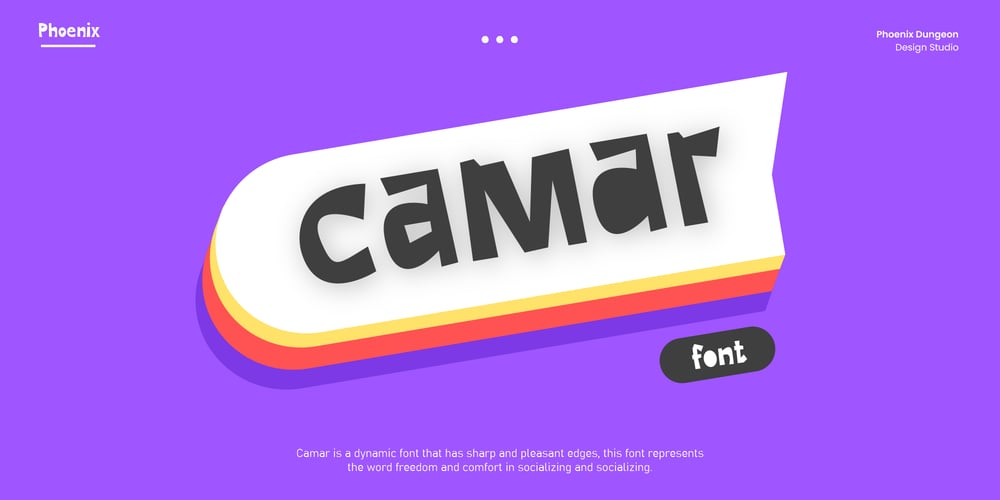
Camar Font Family was designed by Alif Naufal Muzakki and published by Phoenix Group. Camar contains 1 styles and family package options. Camar is a dynamic font that has sharp and pleasant edges, this font represents the word freedom and comfort in socializing and socializing.